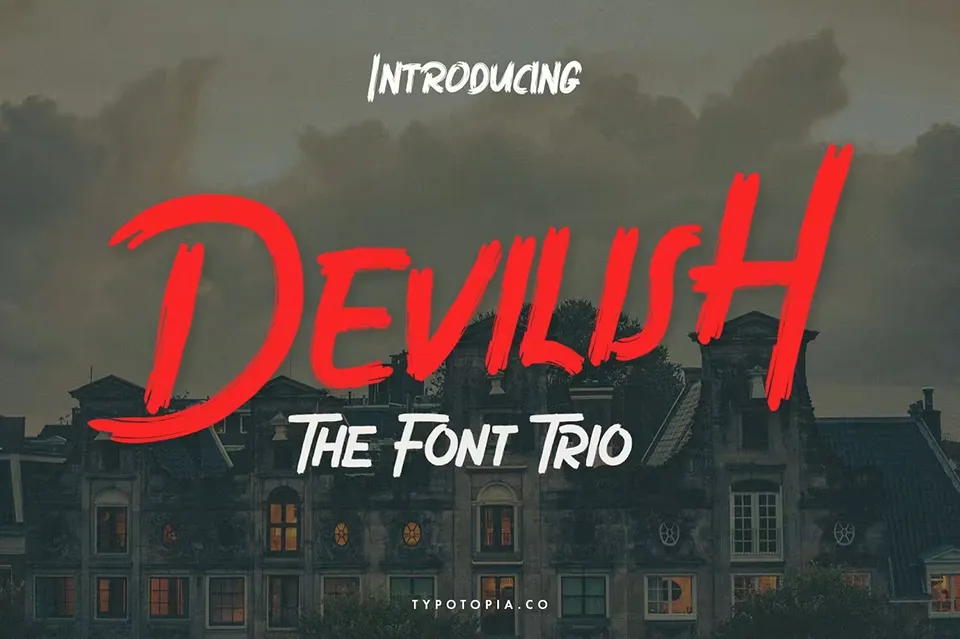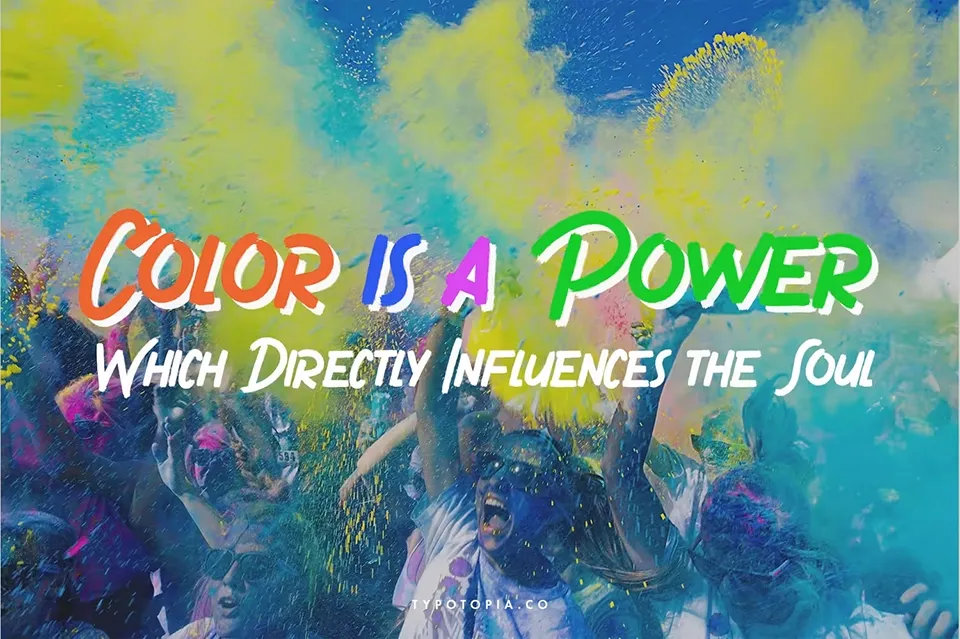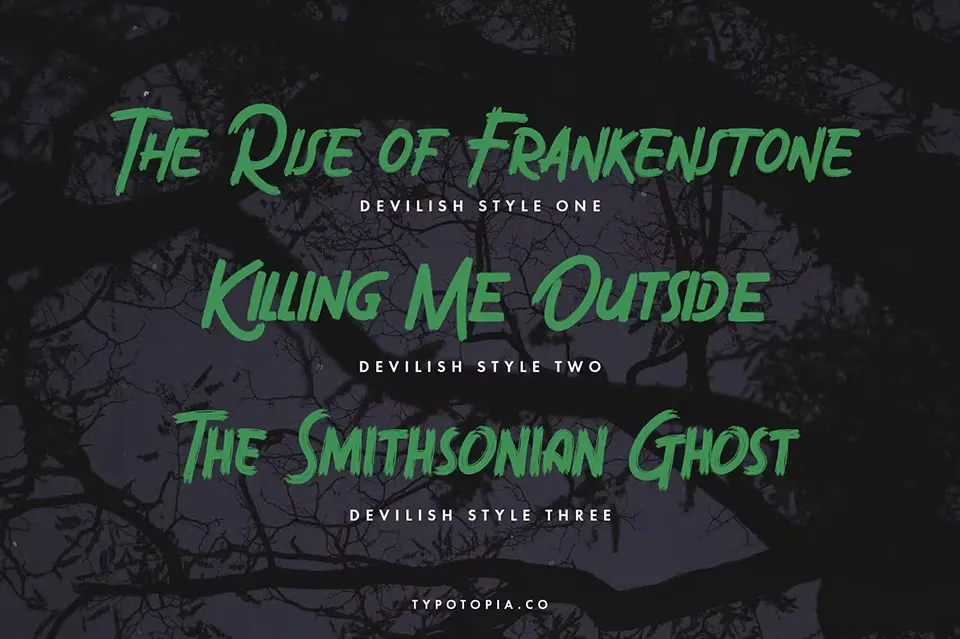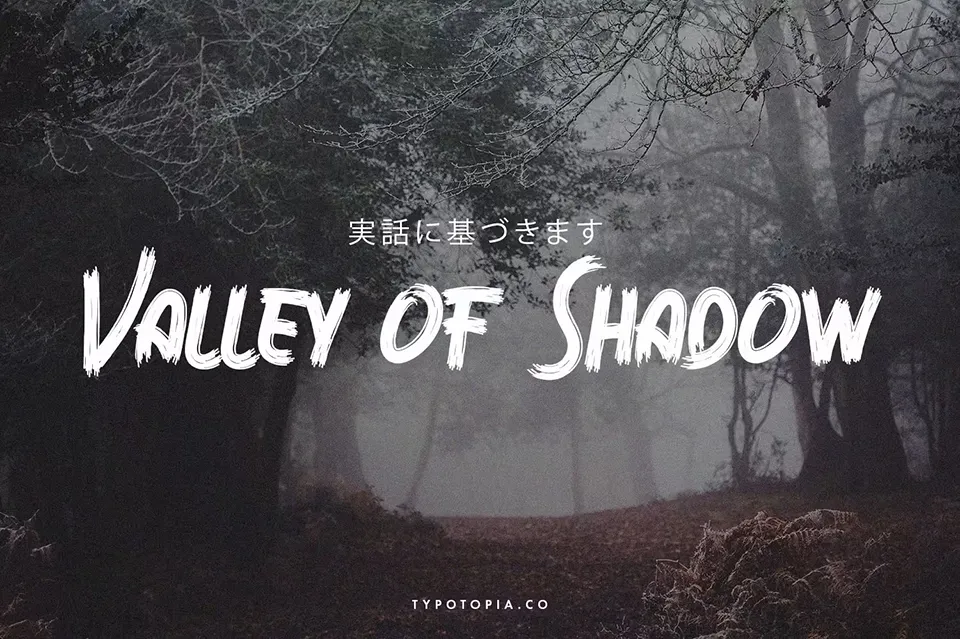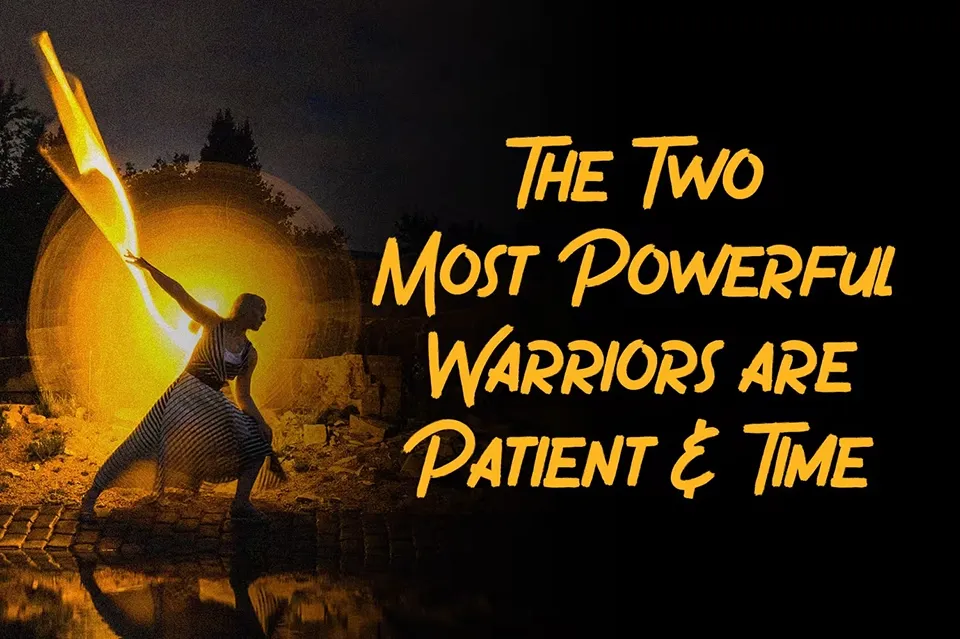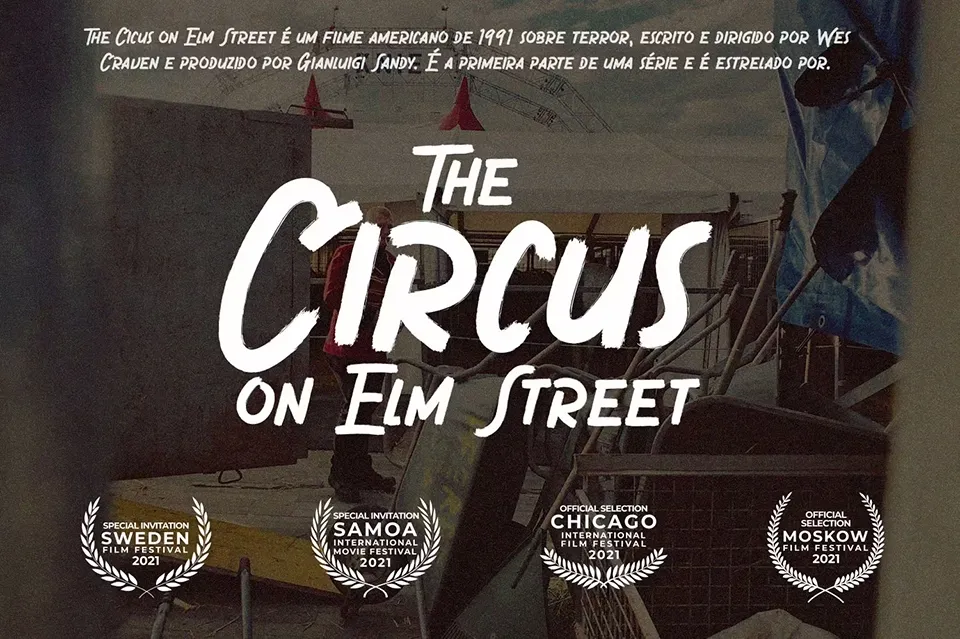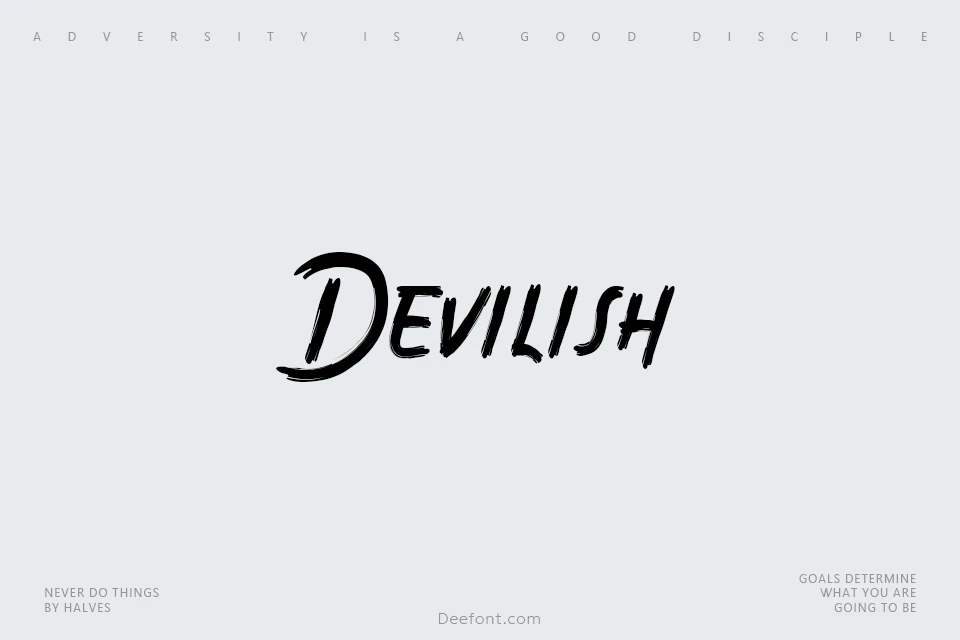
Devilish Font
Devilish Font is a bold and edgy typeface trio designed to capture attention and evoke a sense of mystery and drama. Featuring three distinct styles, this font offers versatility for creating impactful designs that stand out. Its rough brush strokes and sharp edges exude intensity, making it perfect for horror-themed projects, movie posters, branding, and rebellious designs. Devilish Font combines raw energy with artistic flair, delivering a striking visual presence while maintaining readability. Whether you’re crafting bold headlines or dynamic visuals, this typeface brings a daring and powerful aesthetic to your creative work, ensuring your designs leave a lasting impression.